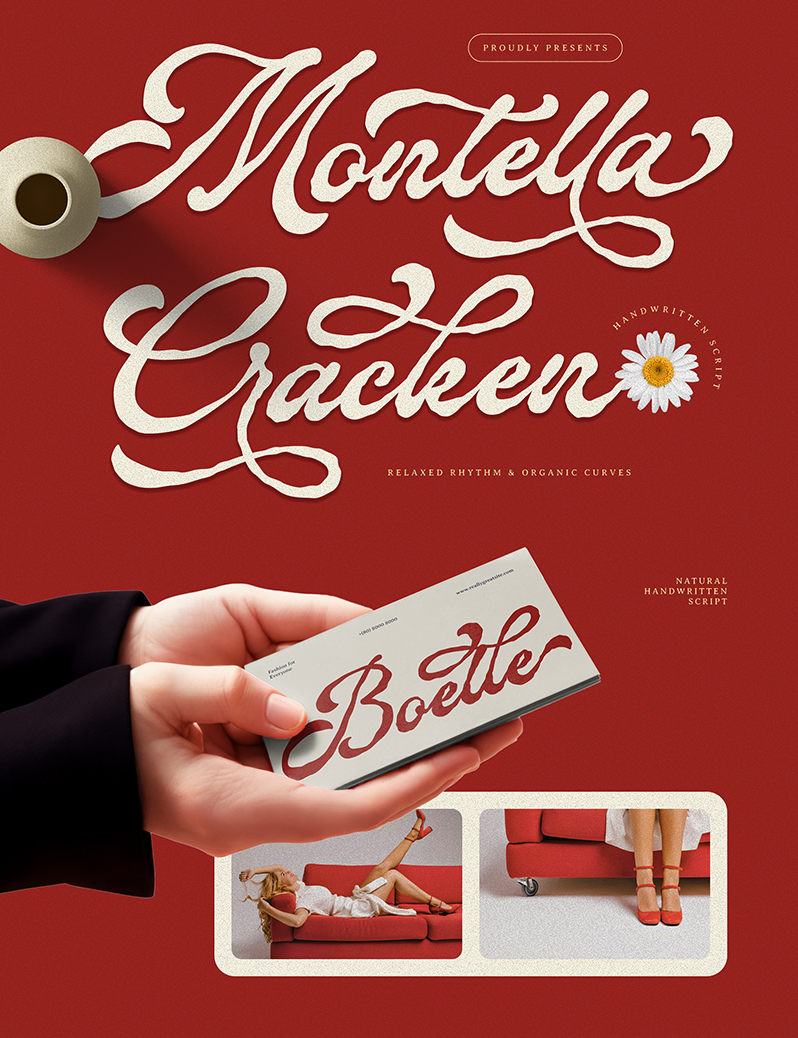
Montella Cracken
Montella Cracken is a natural handwritten script font crafted with relaxed rhythm and organic curves — designed to feel like real pen-on-paper lettering. NOTE : - THIS FONT IS FOR PERSONAL USE ONLY, NO COMMERCIAL USE ALLOWED! - To use this font, please purchase license here https://onedsgn.com/product/montella-cracken-natural-handwritten-script/ - Please note that using this font for any commercial activity before purchasing the proper license will result in a 5x charge for the Corporate License.